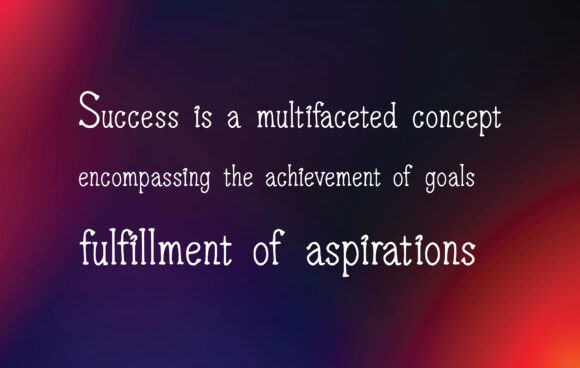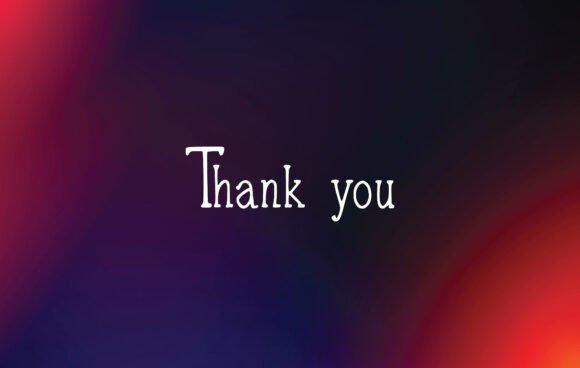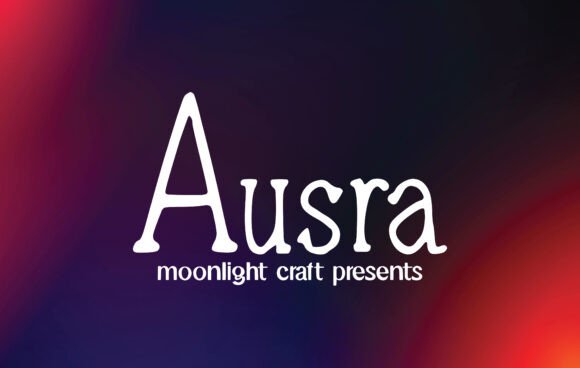
Discover the Beauty of Ausra Font: Elevate Your Designs with this Lovely Handwritten Font
Are you a designer or crafter looking for a font that can take your creative ideas to the next level? Look no further than Ausra Font, a lovely and beautiful handwritten font that is sure to impress. With its unique and elegant style, Ausra Font is the perfect choice for creating eye-catching logos, branding, and quotes that will leave a lasting impression on your audience.
What Makes Ausra Font So Special?
Ausra Font is a one-of-a-kind handwritten font that boasts a distinctive and charming style. Its beautiful, flowing lines and curves make it perfect for creating a wide range of designs, from elegant logos and branding to inspiring quotes and phrases. Whether you’re looking to add a touch of sophistication to your designs or simply want to create something that stands out from the crowd, Ausra Font is the ideal choice.
The Benefits of Using Ausra Font
So why choose Ausra Font over other fonts? Here are just a few benefits of using this amazing handwritten font:
- Elegant and Sophisticated: Ausra Font has a unique and elegant style that is sure to add a touch of sophistication to your designs.
- Versatile: This font is perfect for creating a wide range of designs, from logos and branding to quotes and phrases.
- Easy to Read: Despite its elegant style, Ausra Font is easy to read, making it perfect for use in both digital and print designs.
- Unique: Ausra Font is a one-of-a-kind font that will help your designs stand out from the crowd.
How to Use Ausra Font in Your Designs
Using Ausra Font in your designs is easy. Here are a few tips to get you started:
- Logos and Branding: Use Ausra Font to create elegant and sophisticated logos and branding that will help your business stand out.
- Quotes and Phrases: Add a touch of inspiration to your designs with Ausra Font, perfect for creating beautiful quotes and phrases.
- Digital Designs: Use Ausra Font in your digital designs, such as social media graphics, blog posts, and more.
- Print Designs: Ausra Font is also perfect for use in print designs, such as brochures, flyers, and more.
Why Designers and Crafters Love Ausra Font
Designers and crafters love Ausra Font for its unique and elegant style. Here are a few reasons why:
- Unique Style: Ausra Font has a distinctive style that sets it apart from other fonts.
- Ease of Use: This font is easy to use and works well in a variety of designs.
- High-Quality: Ausra Font is a high-quality font that is perfect for use in professional designs.
In conclusion, Ausra Font is a beautiful and elegant handwritten font that is perfect for designers and crafters looking to take their creative ideas to the next level. With its unique style, ease of use, and high-quality design, Ausra Font is the ideal choice for creating eye-catching logos, branding, and quotes. So why wait? Download Ausra Font today and start elevating your designs!
- Lovely and beautiful handwritten font
- Perfect for creating eye-catching logos, branding, and quotes
- Unique and elegant style
- Easy to read and use
- High-quality design
Recommended for:
- Designers and crafters
- Quotes and phrases
- Digital and print designs